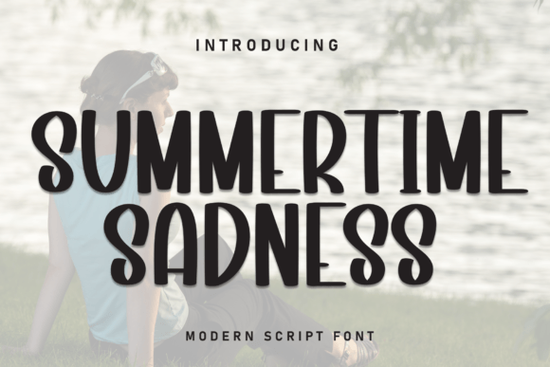
If you're looking for a handwritten font that balances charm with versatility, the Summertime Sadness Font is worth a closer look. It’s a sweet, friendly display typeface that feels personal without being overly fussy perfect for projects that need a light, cheerful touch. Whether you’re designing wedding stationery, birthday cards, or branding for a small boutique, this font adds warmth and approachability to your work.
What makes Summertime Sadness stand out?
Unlike rigid sans-serifs or formal scripts, Summertime Sadness mimics natural handwriting with gentle curves and subtle variations in stroke weight. It’s legible at smaller sizes but truly shines when used larger think envelope addresses, quote graphics, or product labels. The casual flow gives your designs a handmade feel, which resonates well with audiences who value authenticity and personal connection.
It pairs especially well with minimalist layouts or watercolor backgrounds, where its organic shape adds contrast without overwhelming the composition. And because it’s a single-style font (not part of a large family), it’s easy to implement without worrying about matching weights or widths.
When should you use this kind of handwritten font?
Handwritten display fonts like Summertime Sadness work best in contexts that call for intimacy or celebration. Consider using it for:
- Wedding invitations and thank-you notes
- Birthday or baby shower cards
- Small business logos (especially bakeries, florists, or lifestyle brands)
- Social media quotes or Instagram story overlays
- Print-on-demand products like mugs, tote bags, or greeting cards
Just keep in mind: while it’s playful, it’s not ideal for body text or dense paragraphs. Save it for headlines, names, short phrases, or decorative accents where personality matters more than readability over long stretches.
How does it compare to other script fonts?
If you’ve browsed Creative Fabrica’s script collection, you might notice similarities between Summertime Sadness and other friendly handwritten options but each has its own rhythm. For example, Kindness Teacher leans slightly more structured, making it great for educational materials, while Signature Font offers a smoother, more elegant line suited for luxury branding.
Meanwhile, Gather of Good has a bouncy, energetic vibe perfect for seasonal crafts, and Lovely Valentine Duo includes both regular and swash versions for romantic designs. Summertime Sadness sits comfortably in the middle casual enough for everyday joy, but refined enough for special occasions.
Tips for using Summertime Sadness effectively
To get the most out of this font, consider these practical suggestions:
- Avoid tight spacing: Handwritten fonts often need a bit more breathing room. Increase letter-spacing slightly if your design feels cramped.
- Pair with clean sans-serifs: Fonts like Montserrat, Lato, or even basic system fonts (Helvetica, Arial) create nice contrast without competing.
- Use color thoughtfully: Soft pastels or warm neutrals enhance its gentle character; neon or high-contrast black-on-white can make it feel harsher than intended.
- Test print quality: If you’re using it for physical products, print a sample first some fine strokes may disappear on low-resolution printers.
Remember, the goal isn’t just to “use a cute font,” but to support your message. Summertime Sadness works because it feels human not because it’s trendy.